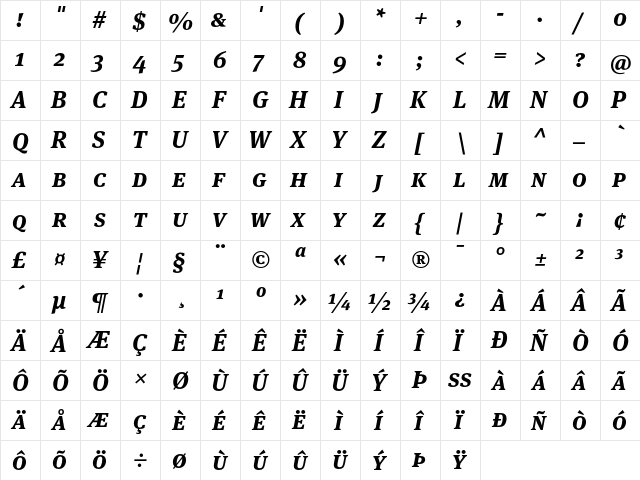
MetaSerifSc-BoldIta Regular
Design Context for MetaSerifSc-BoldIta Typeface
MetaSerifSc-BoldIta brings classic typographic sensibility to the table — its serifs and measured letterforms reflect centuries of print heritage. The heavy weight commands attention and anchors typographic hierarchies.
Pro Tip: Use MetaSerifSc-BoldIta for editorial body copy and considered headline work. Pair with a neutral sans for UI elements or captions to create a classic hierarchy.